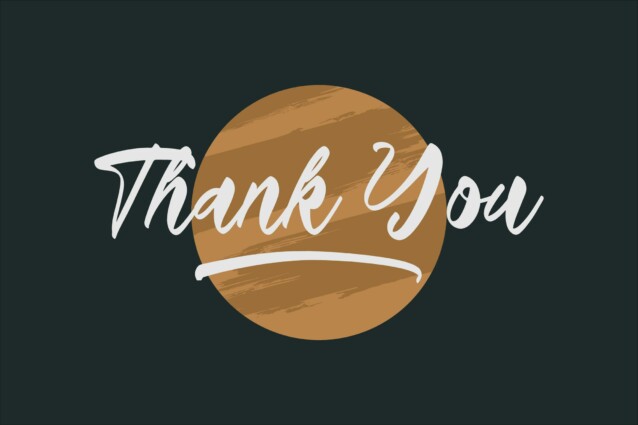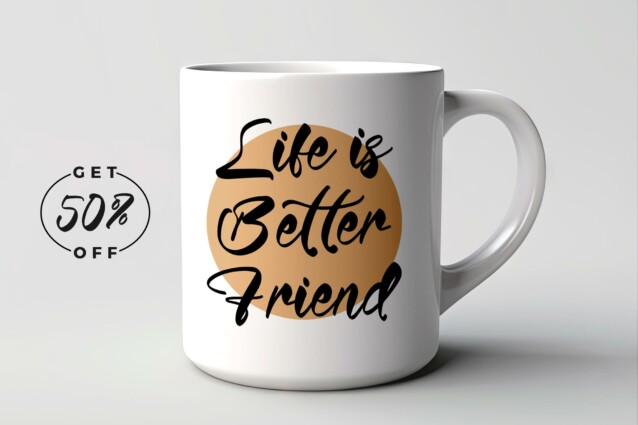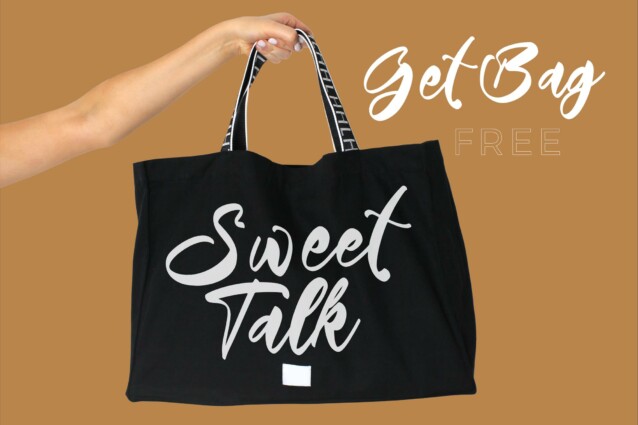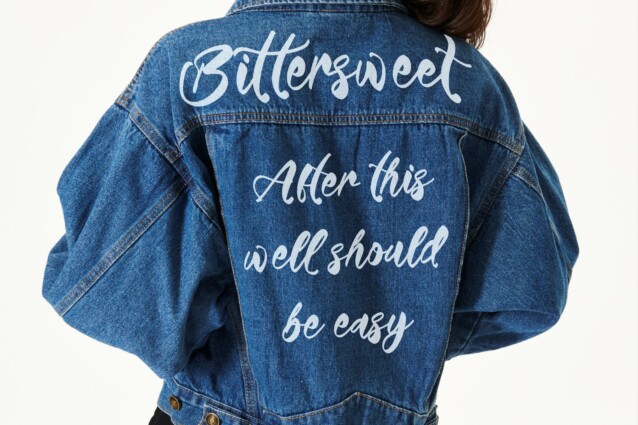
Butlerheart Kosittend Font
Butlerheart Kosittend Font is a Modern Handwritten Font , from Glorytype Studio, suitable for any projects such as: logos, branding projects, homeware designs, product packaging, mugs, quotes, posters, shopping bags, t-shirts, book covers, name card, invitation cards, greeting cards, label, photography, watermark, special events, and all your other lovely projects that need a beautiful script taste.